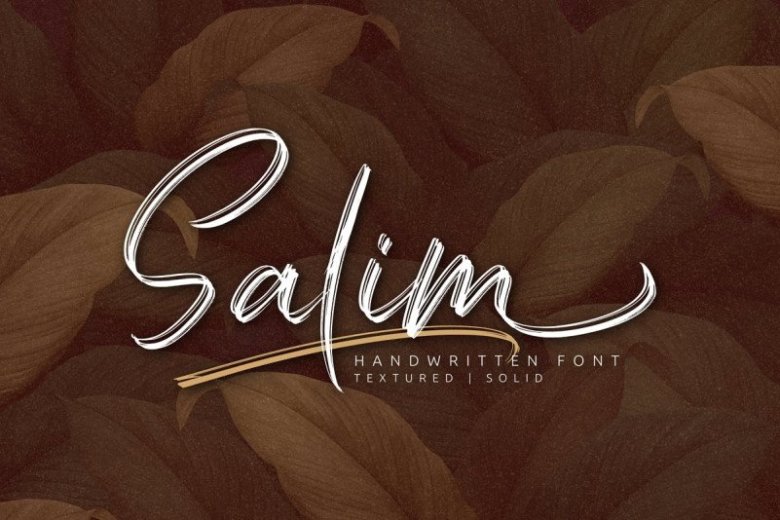
Salim Brush Font
This is a script handwritten brush font, designed and shared by Omotu. It’s a manual brush font. This font looks natural, classy, natural and perfect for awesome projects. Introducing Salim Font. It’s handwritten brush font with 2 styles, regular (brush texture) and solid. Salim Brush unique flow and style makes it perfect to use for prints, logos, logos & branding, invitations, stationery, wedding designs, social media posts, advertisements, product packaging, product designs, labels, photography, watermarks, special events or anything.